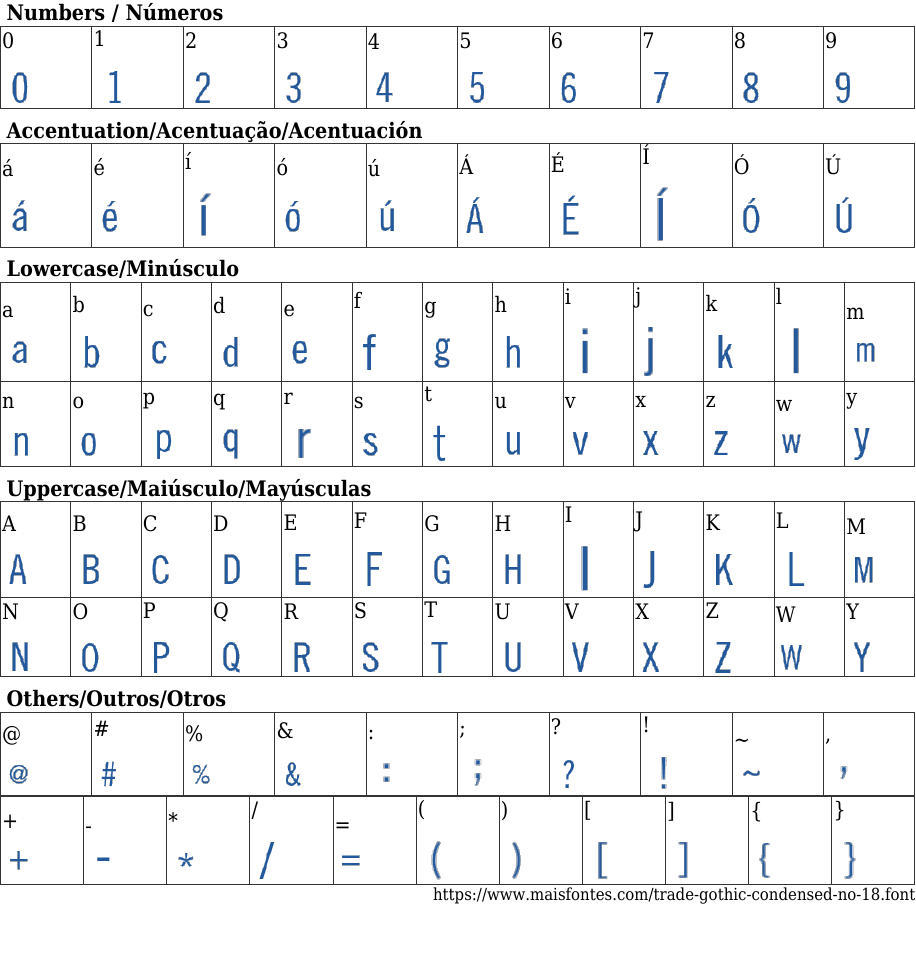
Trade Gothic Condensed Google Font - Discover the free trade gothic pro condensed 18 font at free font download ! The best google font alternative for trade gothic is libre franklin. Installable on pc, mac, linux, ios, and android platforms. Trade gothic is available in three weights—light, regular and bold—each with matching italics as well as various condensed versions. Libre franklin does a great job at matching almost all the lower case letters.
Libre franklin does a great job at matching almost all the lower case letters. The best google font alternative for trade gothic is libre franklin. Trade gothic is available in three weights—light, regular and bold—each with matching italics as well as various condensed versions. Installable on pc, mac, linux, ios, and android platforms. Discover the free trade gothic pro condensed 18 font at free font download !
Installable on pc, mac, linux, ios, and android platforms. Trade gothic is available in three weights—light, regular and bold—each with matching italics as well as various condensed versions. The best google font alternative for trade gothic is libre franklin. Libre franklin does a great job at matching almost all the lower case letters. Discover the free trade gothic pro condensed 18 font at free font download !
Trade Gothic Condensed No 18 Free Font Download MaisFontes
Discover the free trade gothic pro condensed 18 font at free font download ! Trade gothic is available in three weights—light, regular and bold—each with matching italics as well as various condensed versions. The best google font alternative for trade gothic is libre franklin. Libre franklin does a great job at matching almost all the lower case letters. Installable on.
Discover the free trade gothic pro condensed 18 font at free font download ! The best google font alternative for trade gothic is libre franklin. Installable on pc, mac, linux, ios, and android platforms. Libre franklin does a great job at matching almost all the lower case letters. Trade gothic is available in three weights—light, regular and bold—each with matching.
Discover the free trade gothic pro condensed 18 font at free font download ! Installable on pc, mac, linux, ios, and android platforms. Libre franklin does a great job at matching almost all the lower case letters. The best google font alternative for trade gothic is libre franklin. Trade gothic is available in three weights—light, regular and bold—each with matching.
Discover the free trade gothic pro condensed 18 font at free font download ! Trade gothic is available in three weights—light, regular and bold—each with matching italics as well as various condensed versions. The best google font alternative for trade gothic is libre franklin. Libre franklin does a great job at matching almost all the lower case letters. Installable on.
Installable on pc, mac, linux, ios, and android platforms. The best google font alternative for trade gothic is libre franklin. Discover the free trade gothic pro condensed 18 font at free font download ! Libre franklin does a great job at matching almost all the lower case letters. Trade gothic is available in three weights—light, regular and bold—each with matching.
Libre franklin does a great job at matching almost all the lower case letters. Installable on pc, mac, linux, ios, and android platforms. The best google font alternative for trade gothic is libre franklin. Trade gothic is available in three weights—light, regular and bold—each with matching italics as well as various condensed versions. Discover the free trade gothic pro condensed.
Trade Gothic font free download •
Libre franklin does a great job at matching almost all the lower case letters. Installable on pc, mac, linux, ios, and android platforms. Trade gothic is available in three weights—light, regular and bold—each with matching italics as well as various condensed versions. The best google font alternative for trade gothic is libre franklin. Discover the free trade gothic pro condensed.
Trade Gothic Bold Condensed No. 20 Font UpFonts
The best google font alternative for trade gothic is libre franklin. Trade gothic is available in three weights—light, regular and bold—each with matching italics as well as various condensed versions. Discover the free trade gothic pro condensed 18 font at free font download ! Libre franklin does a great job at matching almost all the lower case letters. Installable on.
Free Trade Gothic Bold Extended Font goodtextbible
Libre franklin does a great job at matching almost all the lower case letters. Trade gothic is available in three weights—light, regular and bold—each with matching italics as well as various condensed versions. Discover the free trade gothic pro condensed 18 font at free font download ! The best google font alternative for trade gothic is libre franklin. Installable on.
The Best Google Font Alternative For Trade Gothic Is Libre Franklin.
Installable on pc, mac, linux, ios, and android platforms. Discover the free trade gothic pro condensed 18 font at free font download ! Trade gothic is available in three weights—light, regular and bold—each with matching italics as well as various condensed versions. Libre franklin does a great job at matching almost all the lower case letters.